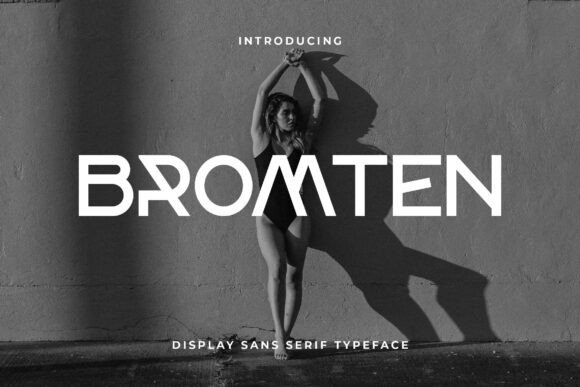
The Birth of a Bold Design: Discovering the Bromten Font
Have you ever stared at a blank page, struggling to bring your creative vision to life? I know I have. It’s in those moments of frustration and doubt that the perfect font can make all the difference. A font that’s not just a tool, but a partner in crime – one that elevates your design and gives it the edge it needs to stand out.
Enter the Bromten Font, a modern sans serif font that’s about to revolutionize your design workflow. With its bold personality and creative edge, Bromten is the perfect blend of professionalism and artistic flair. Whether you’re crafting a brand identity, designing a logo, or creating a poster, Bromten is the ideal choice for anyone seeking a modern yet distinctive visual voice.
- Unique Characteristic: Features a unique blend of modern and traditional typography, making it suitable for various design applications
- Font Weight: Available in light, regular, bold, and italic weights to cater to different design needs
Bromten Font Review
Overall, I’m impressed with the unique aesthetic of the Bromten Font. It’s got a distinct, modern feel that could work well for a variety of projects, from fashion to tech. ✨
Here are some of the things I like about the font:
- Its clean lines and minimalist design make it easy to read, even at smaller sizes.
- The font’s unique letterforms add a touch of personality to any design.
- It’s highly customizable, with a wide range of weights and styles to choose from.
- ⚠️ The font may not be suitable for projects that require a more traditional or classic feel.
- ⚠️ Some of the letters may be difficult to read at very small sizes or in low-resolution environments.
Overall, I’d say the Bromten Font is a solid choice for designers looking to add some modern flair to their projects. While it may not be perfect for every situation, it’s definitely worth considering for the right type of project. With a little creativity and experimentation, I think it could be a great addition to any designer’s toolkit.
Tips for Getting the Most Out of Bromten Font
Here are a few tips to help you get the most out of the Bromten font:
- Use it for headings and titles to add a touch of elegance
- Pair it with a sans-serif font for body text to create a clean and modern look
- Experiment with different font sizes and styles to create visual interest
The Bromten font is ideal for:
- Graphic design projects
- Editorial and publishing projects
Alternatives to Bromten Font for Designers
Monserrat is a popular sans-serif font suitable for titles, headings, and body text. It is a modern, geometric font that is highly legible and versatile. It is ideal for digital products, websites, and mobile apps.
Montserrat is more geometric and modern compared to Bromten Font, which is more rounded and traditional. Montserrat is also more versatile and suitable for a wider range of designs.
Open Sans is a clean, modern sans-serif font that is highly legible and suitable for body text, headings, and titles. It is a great font for digital products, websites, and mobile apps.
Open Sans is more minimalist and modern compared to Bromten Font, which is more rounded and traditional. Open Sans is also more suitable for digital products and websites.
Lato is a modern sans-serif font that is highly legible and suitable for body text, headings, and titles. It is a great font for digital products, websites, and mobile apps.
Lato is more rounded and traditional compared to Bromten Font, which is more geometric and modern. Lato is also more suitable for designs that require a softer and more approachable feel.